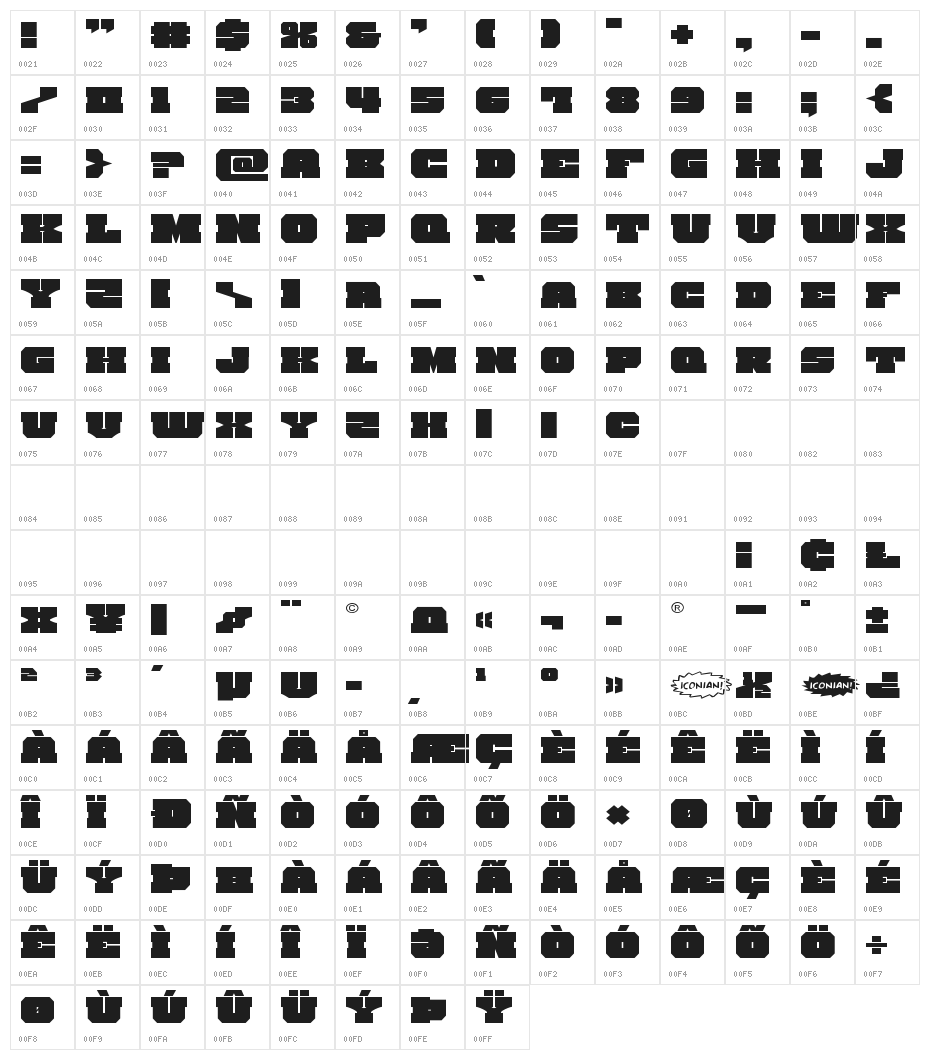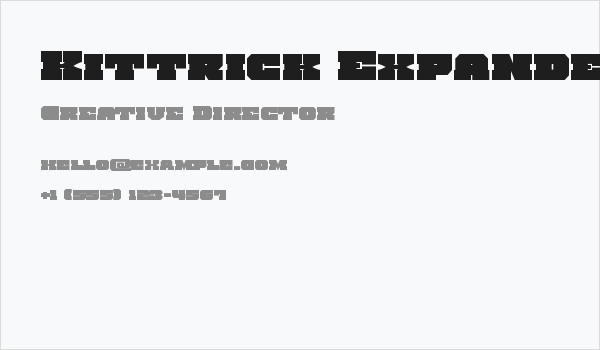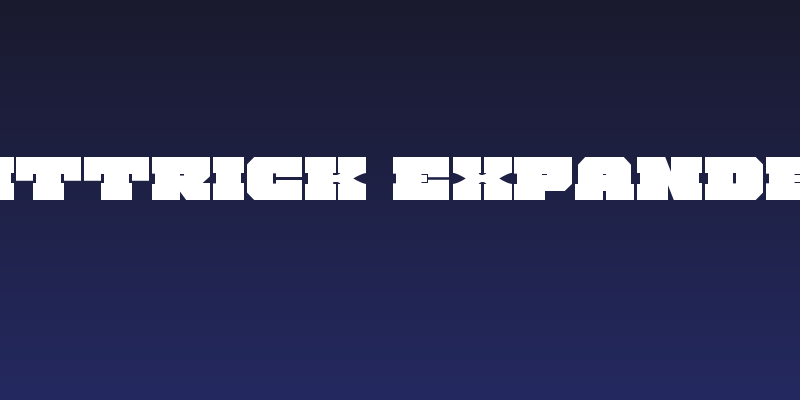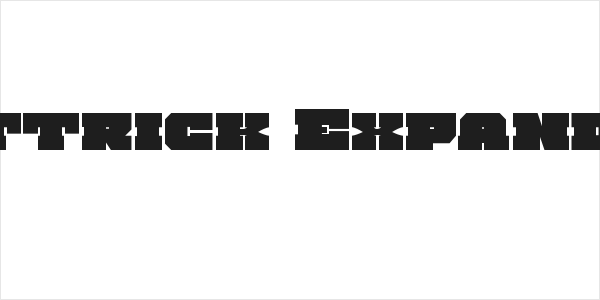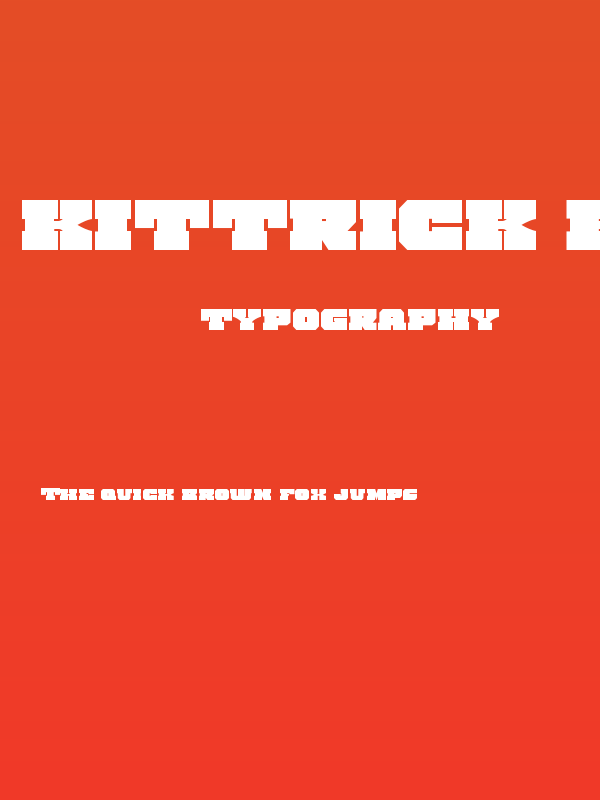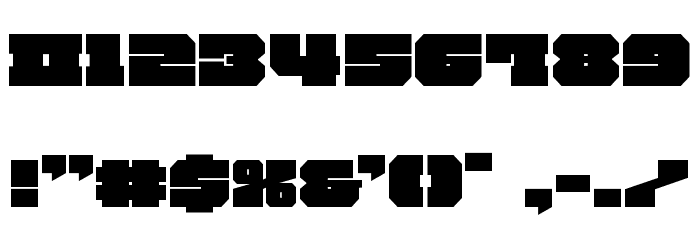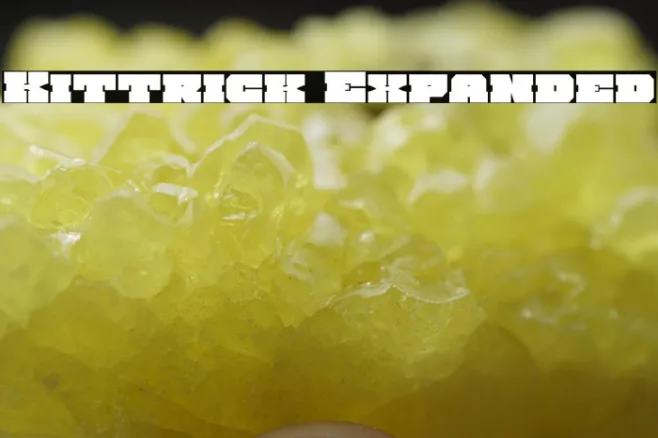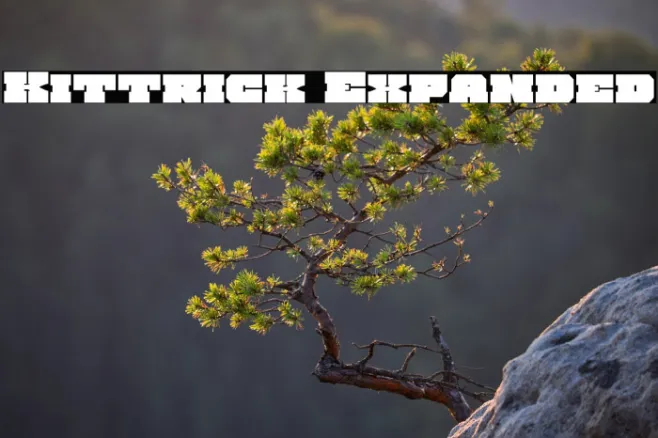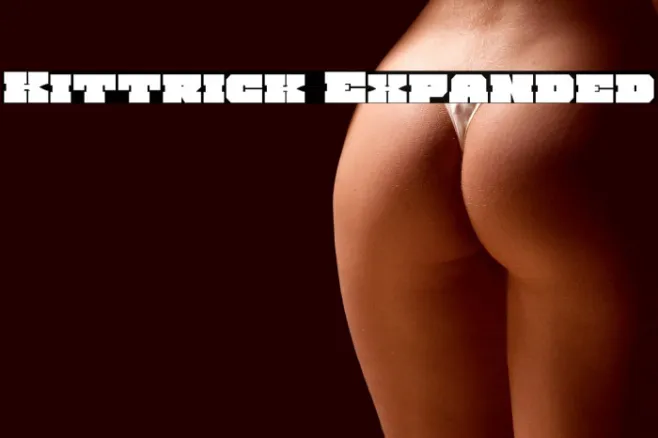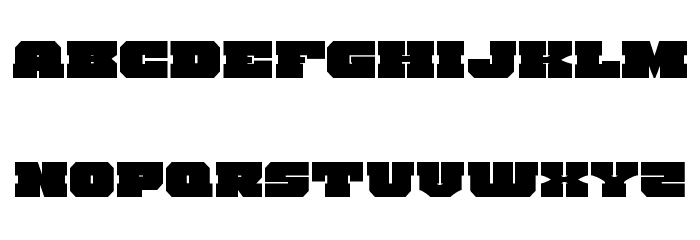
Kittrick Expanded Font
Kittrick Expanded Description
This font features a bold and robust design with a distinctly geometric and blocky appearance. The characters are constructed with thick, uniform strokes that give them a strong presence. The edges are sharp and angular, contributing to a modern and industrial aesthetic. The uppercase and lowercase letters maintain a consistent style, while the numerals and special characters are designed to match the boldness of the alphabet. The overall look is impactful and attention-grabbing, making it suitable for projects that require a strong visual statement.
| Proposed Projects | Ideal for posters, headlines, branding, and any design requiring a strong, impactful typeface. |